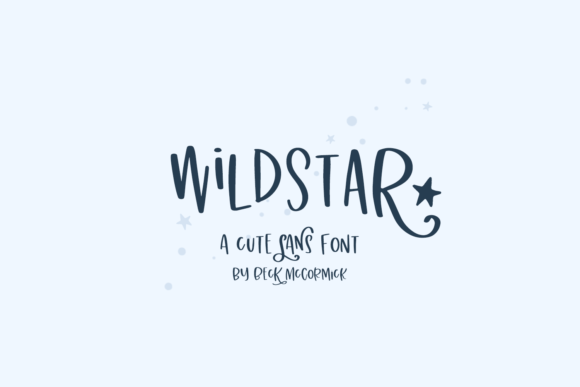
Introducing Wildstar Sans, a quirky sans font. Wildstar includes flourished alternates, full of personality, and perfect for crafty, playful projects. This font is PUA encoded which means you can access all of the amazing glyphs and ligatures with ease!
Wildstar is best for:
– crafty projects with your Cricut or Silhouette machine, or your SVG design business
– whimsical farmhouse decor and crafts
– logos + branding
– website design + website accents, blog design
– clean print design, like magazines + flyers
– header elements that need a handwritten touch
– quote graphics for social media